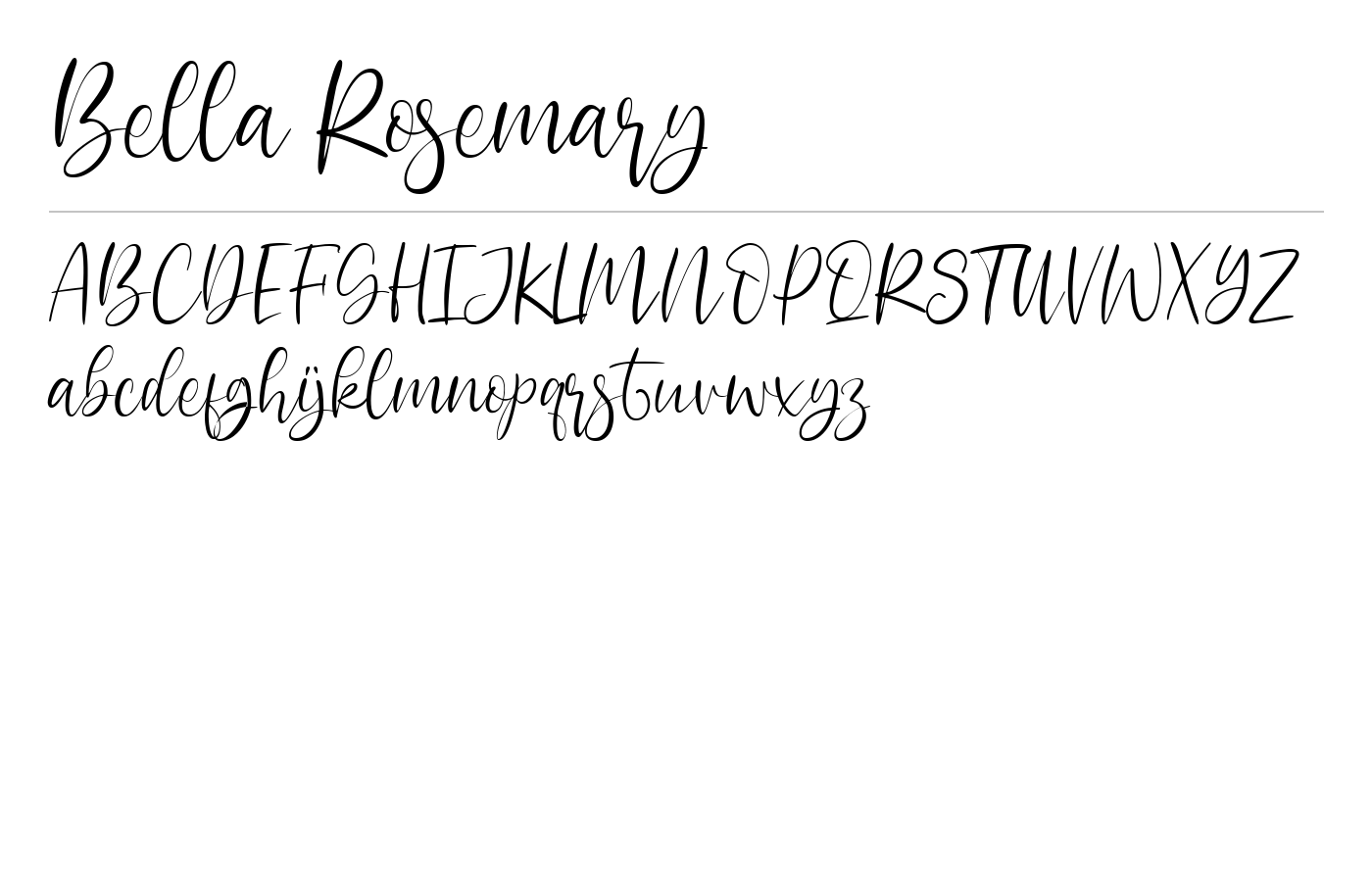
Bella Rosemary is a graceful script font that combines flowing, hand-lettered elegance with slender, slightly varied strokes for a natural, artistic feel. Its light weight and tall, airy letterforms make it perfect for feminine branding, invitations, and stylish logos where a modern, personal touch is desired. This font shines in creative and decorative uses, adding charm and sophistication without overwhelming the design.
Bella Rosemary Font
About Bella Rosemary Font
| Font family | Bella Rosemary Font |
| Designer | Aldy Sidik |